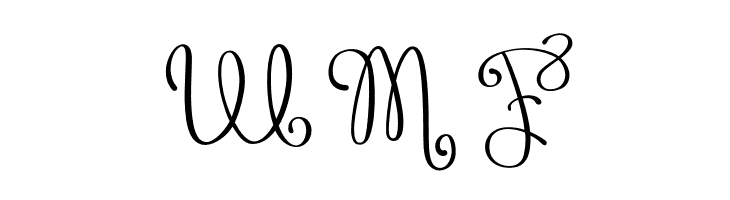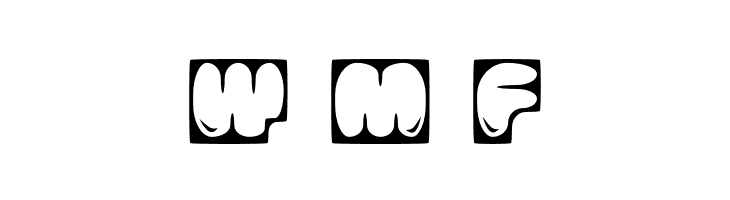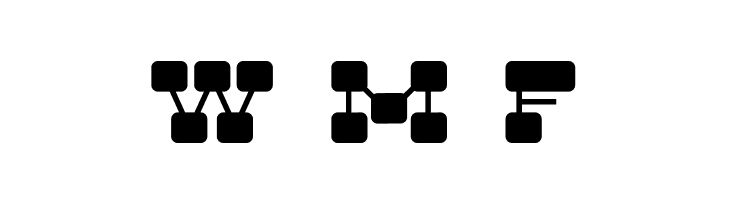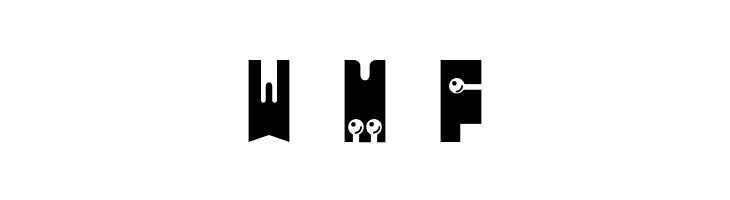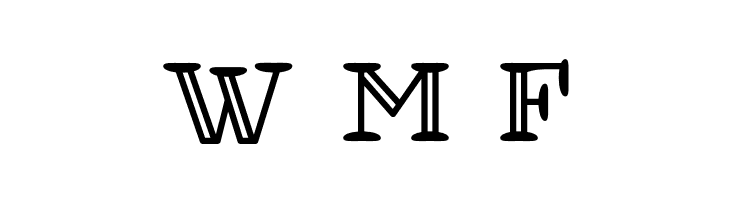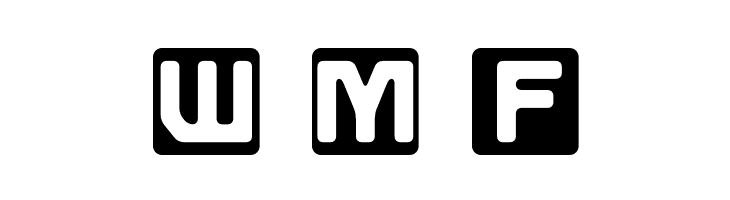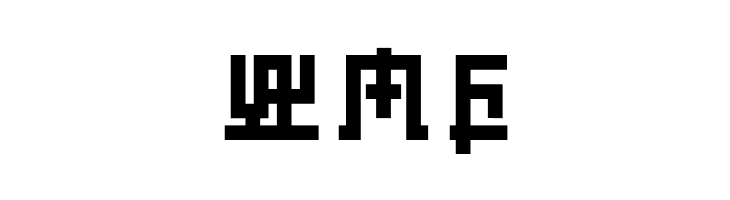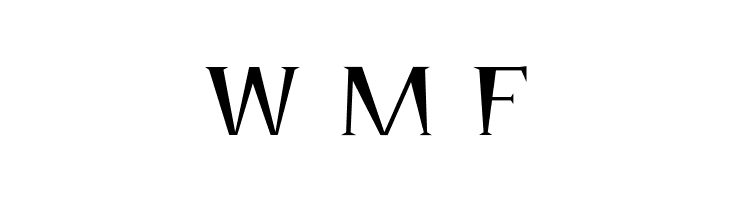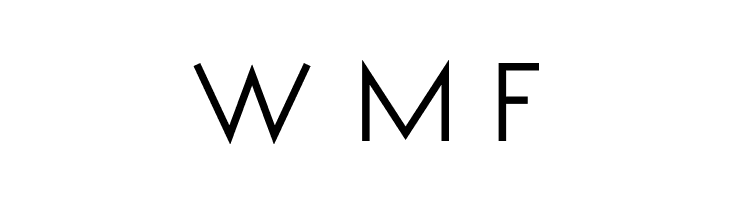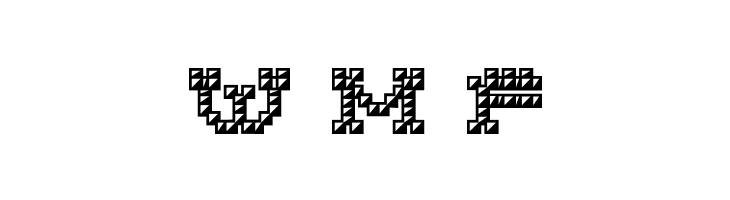
• Poppingheart
A whimsical and decorative font with curly, looping strokes and artistic flair.
• Shudo Normal
• Dowie Normal
An artistic and decorative font with abstract, mystical letterforms.
• Kohmei Normal
A bold, narrow font with high contrast and a striking presence.
• Jonei Black
A bold, playful font with a cartoon-like, blocky design.
• Sonrits Regular
A classic serif font with elegant and well-defined characters.
• Kaiho Regular
A bold, futuristic font with geometric and block-like design.
• FriendlyGothic
A clean, modern sans-serif font with a balanced and versatile design.
• Richu Regular
A playful, dot-based decorative font with a modern and friendly appearance.
• Goyo Regular
A bold, geometric font with a modular and futuristic design.
• Chousei Normal
A geometric, futuristic font with angular, linear design and uniform stroke width.
• Kohken Heavy
A bold, geometric font with an industrial and futuristic design.
• Sohshin Regular
A bold slab serif font with strong, block-like serifs and a modern yet classic appeal.
• Busho Heavy
A bold, three-dimensional font with a shattered glass effect.
• TeitokusonSymbols
A bold, geometric font with enclosed characters and playful symbols.
• Toko Bold
A bold, playful font with rounded, hand-drawn characters.
• Shuto Regular
A playful, hand-drawn font with quirky, irregular letterforms.
• Touhei Regular
A bold, rounded slab serif font with a modern yet vintage appeal.
• Guitarhyst
A bold, geometric font with a digital, pixelated style.
• Yohshi Normal
A classic serif font with elegant and refined characteristics.
• Saifuku Normal